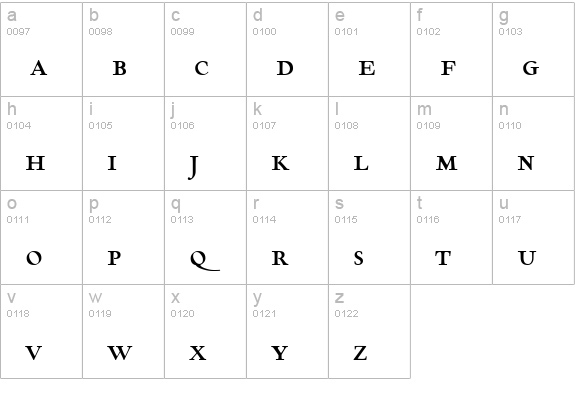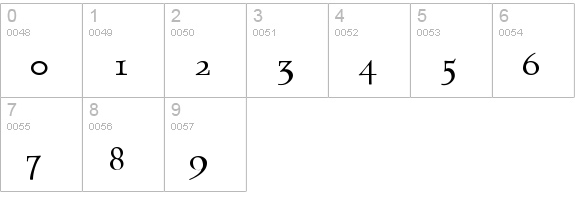
TaskSmall Caps Font Details
TaskSmall Caps font is a stylish and versatile typeface that adds a touch of sophistication to any design project. With its clean lines and distinct small capitals, this font is perfect for creating eye-catching headings, titles, and logos. Whether you're working on a print or digital project, TaskSmall Caps will elevate your design and make it stand out. Best of all, TaskSmall Caps font is available for free download at FontsMarket.com. Simply visit the website and download this high-quality font to use in your projects without any cost. Don't miss out on this fantastic opportunity to enhance your designs with TaskSmall Caps font!